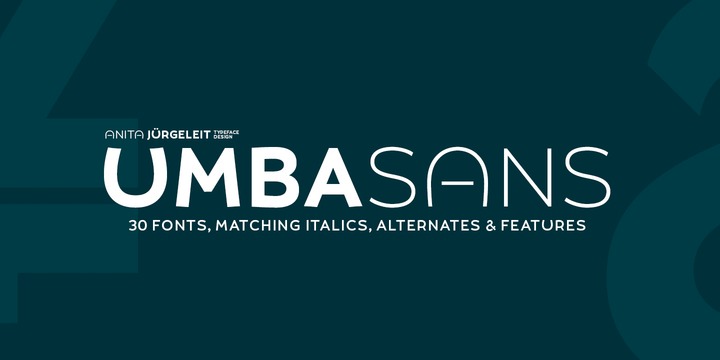
Umba Sans Font
Umba Sans Font is perfectly suited for modern corporate branding, clean web design interfaces, professional business communications, contemporary signage systems, tech startup identities, minimalist advertising campaigns, user-friendly app designs, streamlined presentations, and efficient information layouts.
What makes Umba Sans Font so exciting is its perfect balance of contemporary sophistication and functional clarity that delivers exceptional performance across all modern design applications while maintaining distinctive character that prevents generic appearance. This outstanding sans-serif typeface embodies the principles of clean, efficient design with its carefully refined letterforms and harmonious proportions that create immediate visual impact without sacrificing readability or professional appeal. The font's versatile character shapes and modern styling make it equally effective for corporate communications and creative projects. Umba Sans Font stands out through its ability to convey professionalism, innovation, and contemporary efficiency, making it perfect for projects that need to establish modern credibility while communicating effectively with diverse audiences who value clarity, functionality, and forward-thinking design.
The Umba Sans Font family includes Thin, Light, Regular, Medium, Bold, and Black weights, each available in both roman and italic styles for comprehensive design flexibility. The family also features condensed and extended variations that enhance the font's versatility and provide complete solutions for complex branding systems requiring consistent typographic performance across multiple applications.
The technical superiority of Umba Sans Font includes comprehensive character sets supporting multiple languages, advanced OpenType features, and precision-engineered spacing optimized for both screen and print applications. The font maintains exceptional legibility at all sizes while providing the flexibility needed for comprehensive branding systems that require seamless integration across diverse media platforms and design contexts.
Whether you're developing corporate identities, designing digital interfaces, creating professional marketing materials, or building comprehensive brand guidelines that demand modern sophistication and functional excellence, Umba Sans Font delivers the perfect combination of contemporary style and professional reliability that ensures your projects remain effective and visually compelling for today's design-conscious audiences.